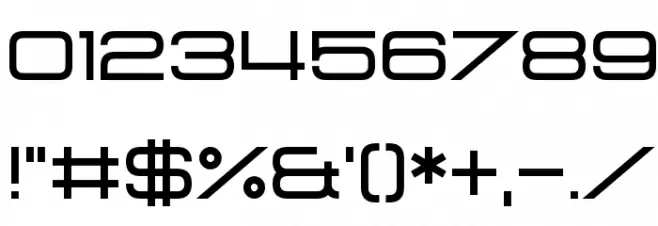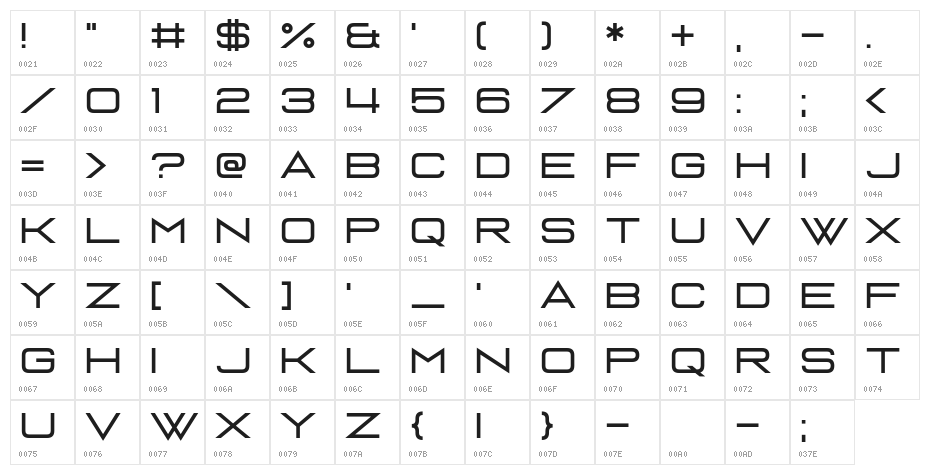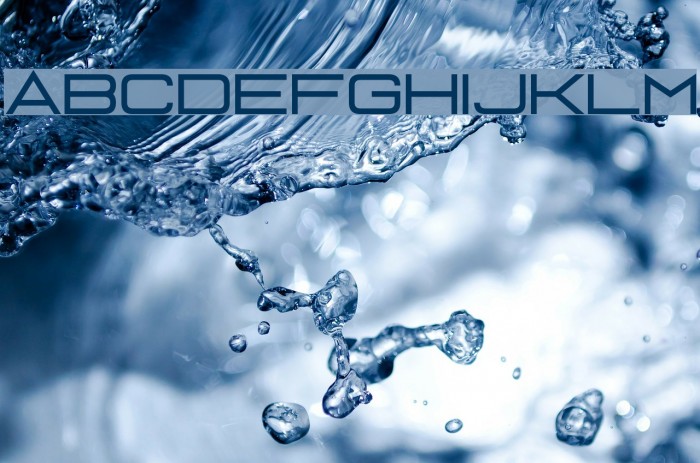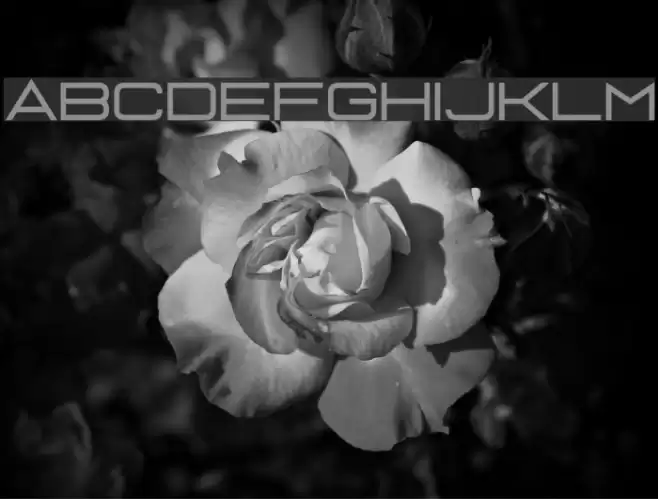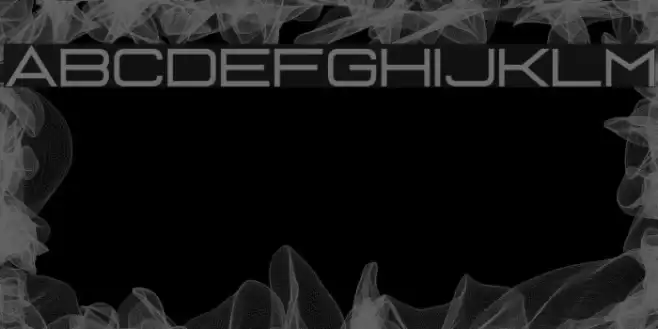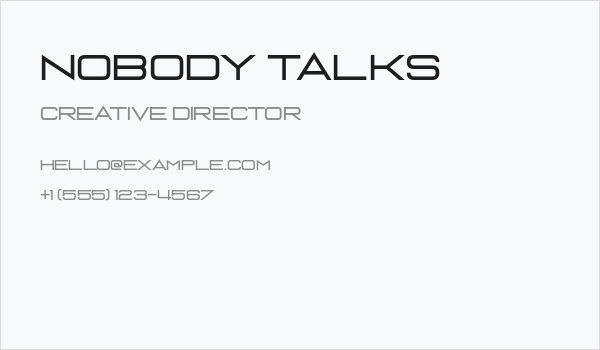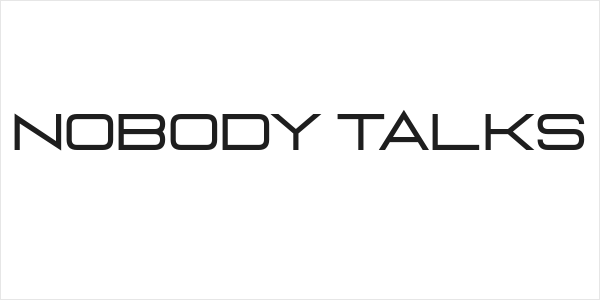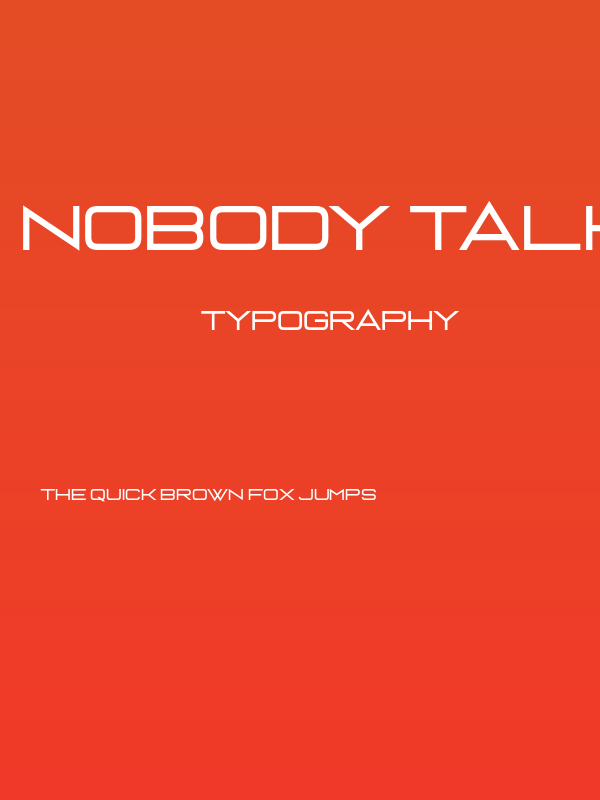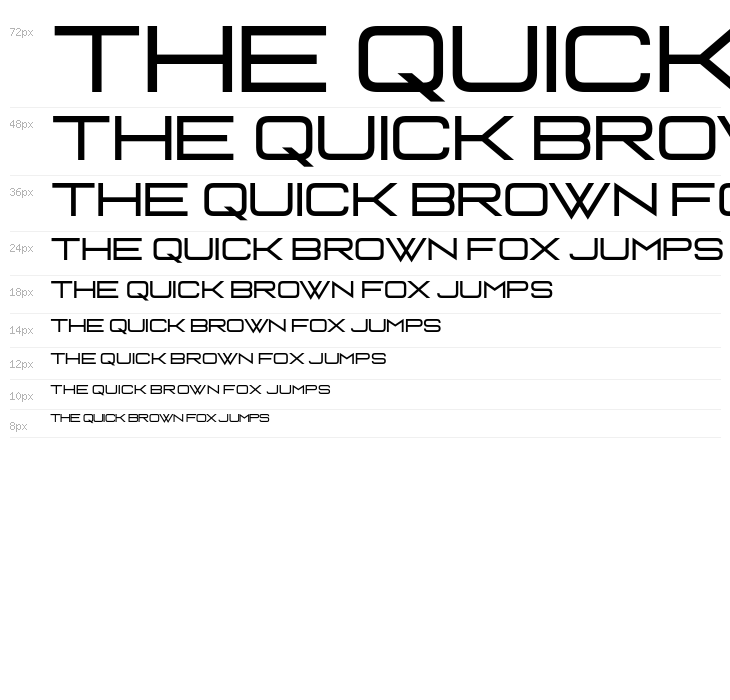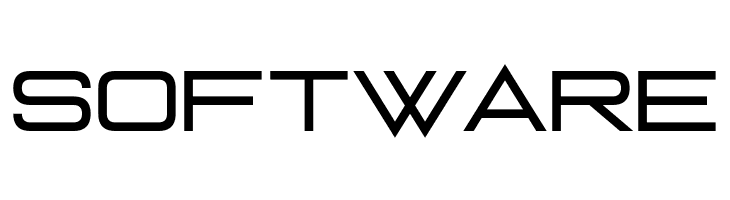
Nobody Talks Font
Nobody Talks Description
This font features a modern and sleek design with a geometric and futuristic aesthetic. The characters are constructed with clean lines and a uniform stroke width, giving it a technical and precise appearance. The uppercase letters are bold and commanding, while the lowercase letters maintain a consistent style that complements the uppercase. The numerals are distinct and easily readable, matching the overall design ethos. Special characters are well-integrated, maintaining the font's cohesive look. This font is ideal for projects that require a contemporary and professional touch.
| Use Case | Headlines, Logos, Digital Interfaces |
| Proposed Projects | Ideal for technology branding, modern advertising, digital interfaces, and futuristic designs. |